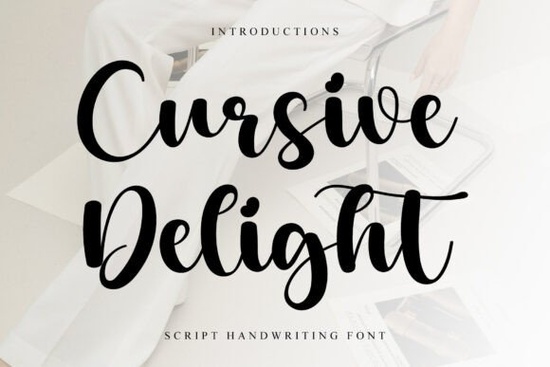
If you're looking for a handwritten script that feels both elegant and approachable, Cursive Delight Font might be exactly what your next project needs. It’s not overly ornate or stiff just a soft, flowing cursive with enough personality to stand out without overwhelming your design. Whether you’re creating wedding invitations, branding for a boutique, or custom greeting cards, this font adds a gentle, romantic flair that still reads as modern and friendly.
What kinds of projects work best with Cursive Delight?
This font shines in contexts where warmth and personal touch matter. Think:
- Wedding stationery – from save-the-dates to place cards
- Small business logos – especially bakeries, florists, or lifestyle brands
- Print-on-demand products like mugs, tote bags, or journals with inspirational quotes
- Fashion lookbooks or beauty product labels that aim for a soft, feminine aesthetic
- Social media graphics for promotions that need a little charm
Because it’s a true cursive with connected letters (but still highly legible), it works beautifully when you want something that feels hand-lettered but doesn’t require actual calligraphy skills.
How does it compare to other script fonts on Creative Fabrica?
Not all script fonts are created equal. Some lean dramatic (Western Font brings bold flair), while others are minimalist and airy (White Heart Font offers delicate simplicity). Brasky Font has more bounce and energy, great for youthful designs, and the Dream Big Bundle gives you multiple styles in one pack if you like variety.
Cursive Delight sits comfortably in the middle refined but relaxed, with smooth curves and consistent spacing. It’s the kind of font you can use for a luxury skincare label one day and a cozy café menu the next.
Is it easy to pair with other typefaces?
Yes! One of its strengths is versatility in pairing. Because Cursive Delight has moderate contrast and open letterforms, it plays well with clean sans-serifs like Montserrat, Lato, or even a subtle serif like Playfair Display. Avoid pairing it with another elaborate script that can create visual clutter. Instead, let it be the star and support it with neutral, readable fonts for body text or subheadings.
For example, use Cursive Delight for a headline like “Handcrafted with Love,” then switch to a simple sans-serif for details like ingredients, dates, or contact info.
Tips for getting the best results
To make the most of this font:
- Use generous spacing – scripts can feel cramped if line height is too tight.
- Avoid all caps – cursive fonts like this are designed for lowercase flow; uppercase often breaks the rhythm.
- Test readability at small sizes – while gorgeous at 24pt+, fine details may blur below 12pt in print.
- Add subtle texture – overlaying a light paper grain or watercolor wash can enhance its handmade feel.
Ultimately, Cursive Delight works because it doesn’t try too hard. It’s not shouting for attention it’s whispering elegance. And in a world of loud, overdesigned visuals, that quiet confidence can be exactly what makes your project memorable.